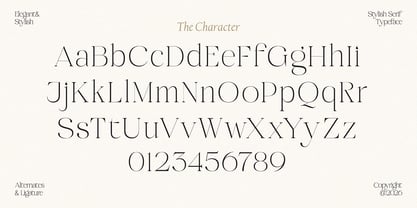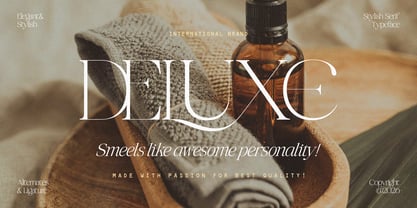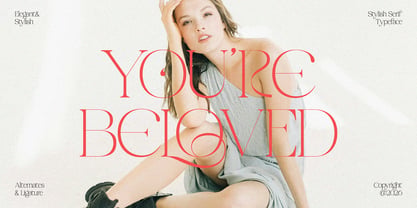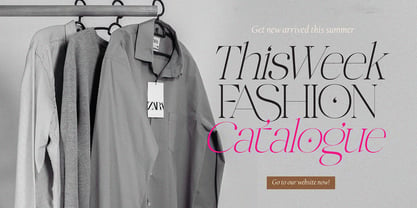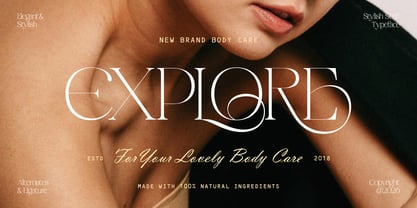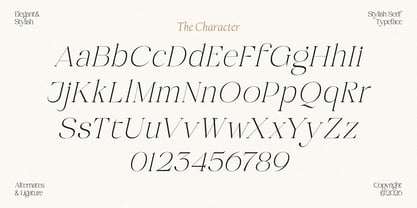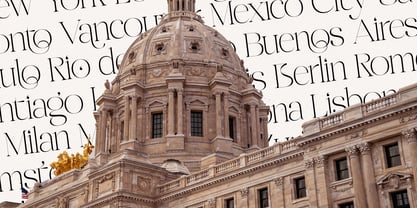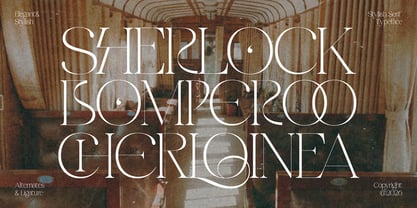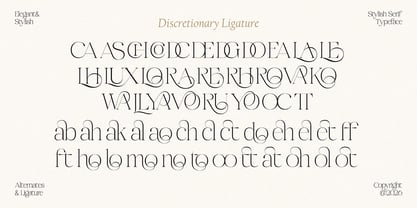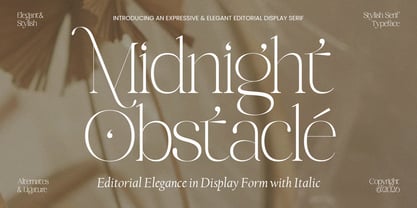
Midnight Obstacle
por Godbless Studio
La familia tipográfica Midnight Obstacle fue diseñada por Heri Juniawan y publicada por Godbless Studio. Midnight Obstacle contiene 2 estilos y opciones de paquete familiar. Más información sobre esta familia
Midnight Obstacle is a modern display serif typeface crafted with elegance, contrast, and expressive detail in mind. Its refined letterforms feature sharp transitions and graceful curves, creating a sophisticated rhythm that feels light, stylish, and editorial-driven. Designed for visual impact, this typeface shines in headlines and statement typography. A rich collection of stylistic alternates and carefully designed ligatures allows each word to feel custom and fluid, adding a sense of movement and personality to every composition. Midnight Obstacle is ideal for fashion editorials, luxury branding, magazine layouts, posters, invitations, and refined visual identities. It is a typeface made to elevate design work where aesthetics, mood, and typographic expression matter.
Diseñadores: Heri Juniawan
Fundición: Godbless Studio
Godbless Studio is a design studio based in Banda Aceh, a city in Indonesia. Godbless Studio is engaged in online marketplaces such as fonts and illustrations. Godbless Studio was founded in 2018 and has produced various digital products that are different from the others and are also classy. We keep trying to move forward and develop every step of the way. We always try to keep up with the times for every product we produce so that every consumer is satisfied with the products we offer. Greetings from us Godless Studio